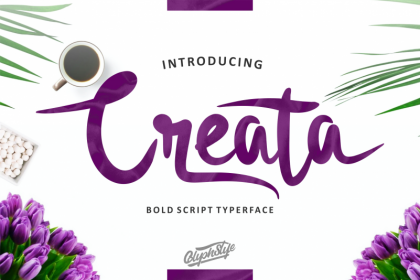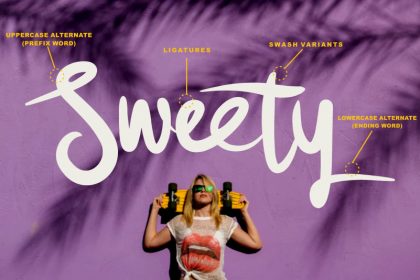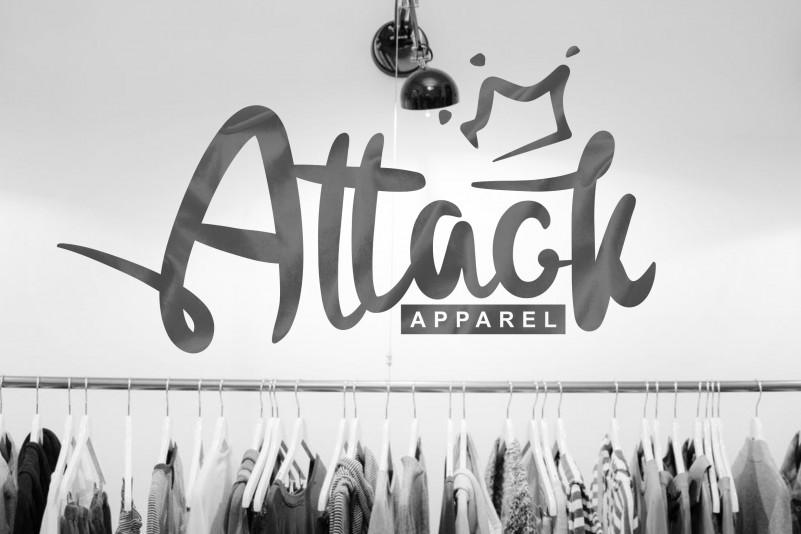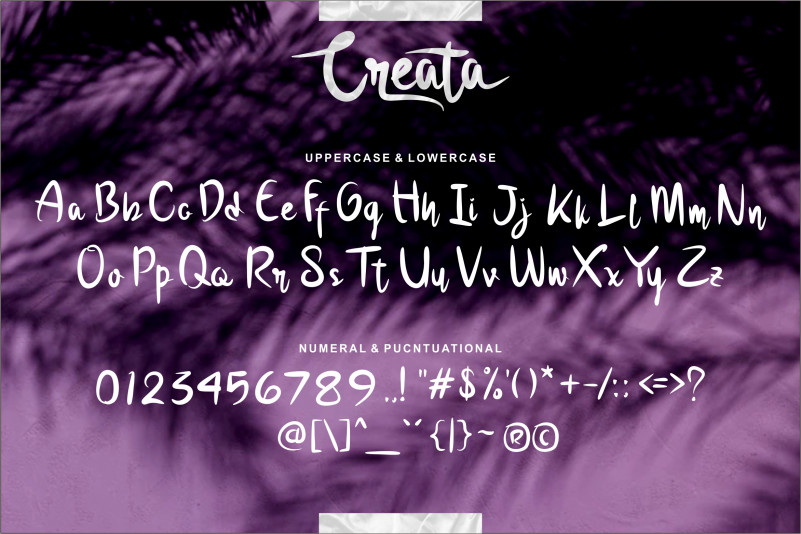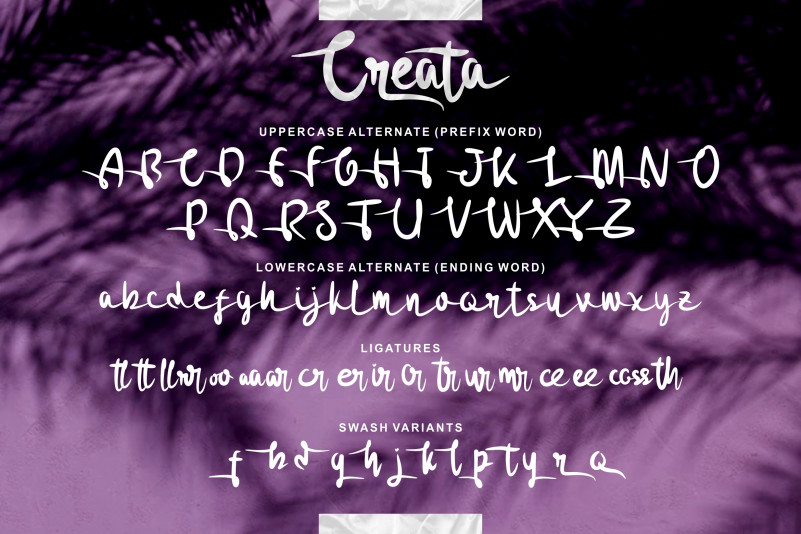
Creata Script Font
Creata is a bold and smooth handwritten script. Creata with a smooth curve. Creata is perfect for branding and logo projects, wedding designs, social media posts, advertisements, business cards, apparel product, quotes, cover magazines, labels, photography, watermarks, invitations, stationery, and any projects that require thick handwriting tastes.